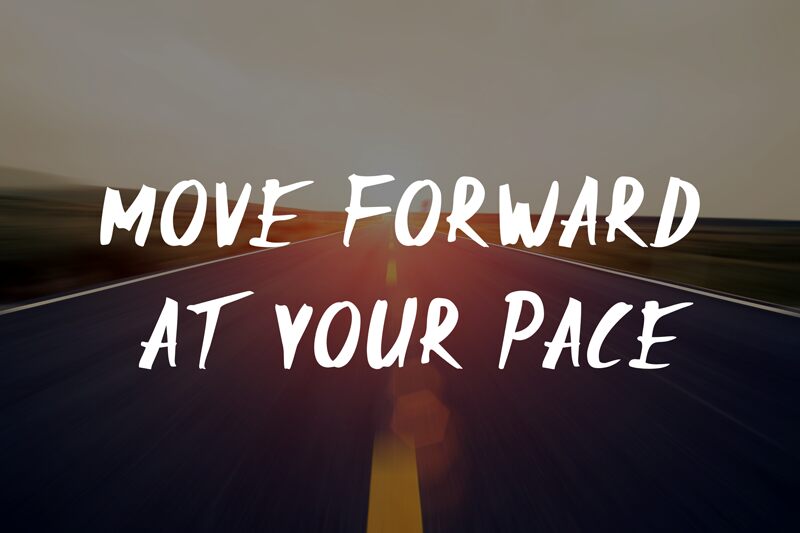
Game Plan font, crafted by Tigadestd, is a striking graffiti-inspired typeface that exudes dynamic energy and artistic flair. Its bold, flowing lines and angular strokes capture the raw essence of urban street art, making it an ideal choice for designs seeking an edgy and contemporary vibe.
As a free font download, Game Plan is perfect for projects that require a blend of creativity and impact. Whether you're working on posters, logos, or digital graphics, this font can infuse your work with a sense of rebellion and modernity. Its unique style ensures that any text set in Game Plan becomes a focal point. Embrace the bold expression of Game Plan font to elevate your designs today!